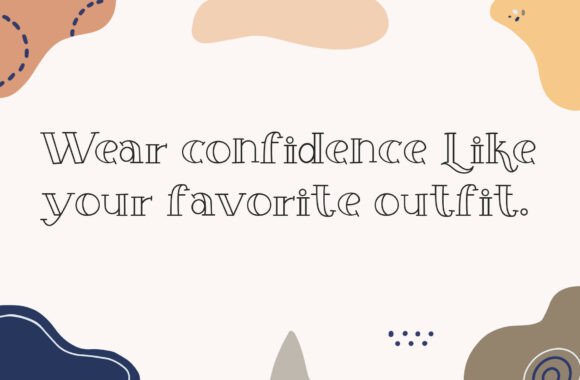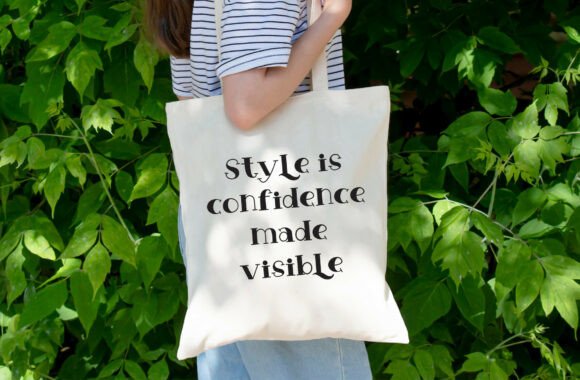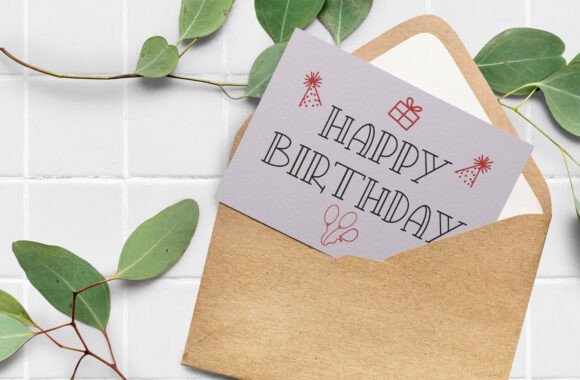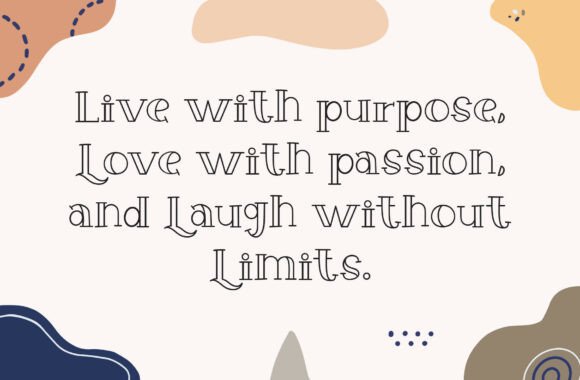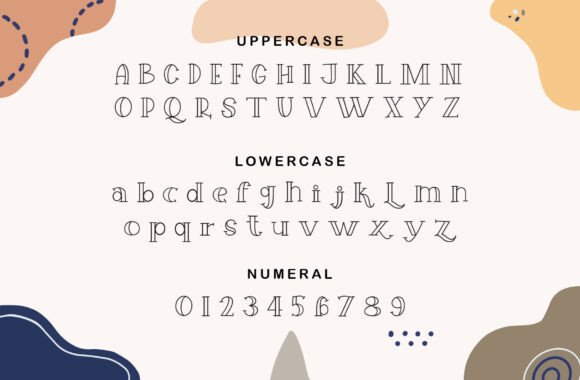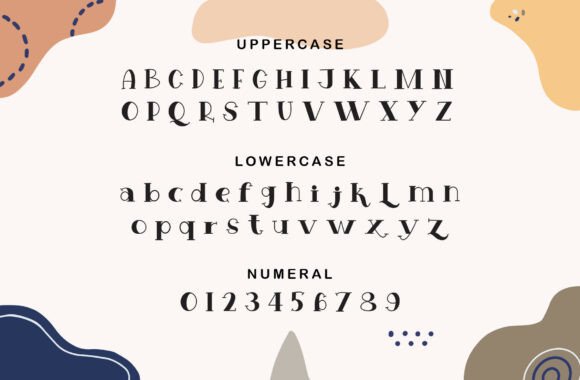
Introduction to Hollow Charm Font
As a designer, have you ever found yourself rummaging through your digital stash, searching for that perfect font to elevate your latest creative project? The struggle is real, but what if I told you there’s a font that can bring a touch of handmade magic to your designs?
Enter the enchanting Hollow Charm Font, a beautifully crafted duo that combines a delicate outline with a filled version, offering endless possibilities for creative expression. With its meticulous attention to detail and organic textures, this font exudes a high-quality, artisanal aesthetic that’s sure to leave a lasting impression on your audience.
As a valuable resource for designers, the Hollow Charm Font is a free download that’s perfect for crafting unique logos, labels, tags, packaging, posters, and invitations. Its transparent background and versatile style make it an ideal design resource for any creative project, adding a touch of rustic charm and elegance that’s sure to set your work apart from the rest.
Key Features of Hollow Charm Font
- Unique, hand-drawn design with a high-quality aesthetic, perfect for creative projects.
- Features a transparent background, allowing for easy layering and customization in your design.
- Designed with a high level of detail and precision, ensuring a crisp and clear appearance at resolutions up to 300 DPI.
- Perfect for use in various design applications, including logos, branding, and digital art.
Honest Review: Hollow Charm Font
I recently came across the Hollow Charm Font, a free download that I was excited to try out for my creative project. As a designer, I’m always on the lookout for high-quality design resources that can elevate my work.
Here are some things that I like about the Hollow Charm Font:
- ✨ The font has a unique, hand-drawn feel that adds a touch of whimsy to any design.
- ✨ The transparent background makes it easy to layer and customize the font to fit my design needs.
- ✨ The font is highly versatile and can be used for a wide range of creative projects, from logos to invitations.
- ⚠️ The font is not as extensive as some other fonts I’ve used, with only a limited number of styles and weights available.
- ⚠️ The font may not be suitable for use in body text, as it can be a bit difficult to read at small sizes.
Overall, I’m impressed with the Hollow Charm Font, but I do wish it had a bit more flexibility. If you’re looking for a unique, high-quality font for a creative project, the Hollow Charm Font is definitely worth checking out. Just be aware of its limitations and use it accordingly.
Hollow Charm Font
Tips for Getting the Most Out of Hollow Charm Font
Use the Hollow Charm Font in creative projects such as invitations, brochures, and social media graphics. Experiment with different font sizes, colors, and styles to add visual interest to your designs. Combine the font with images or other design elements to create a unique and eye-catching look.
The Hollow Charm Font is ideal for use in a variety of design projects, including:
– Invitations and event announcements
– Brochures and flyers
– Social media graphics and ads
– Branding and marketing materials